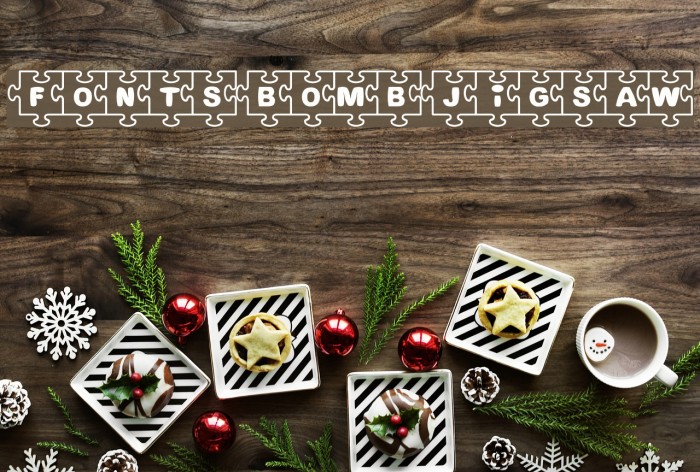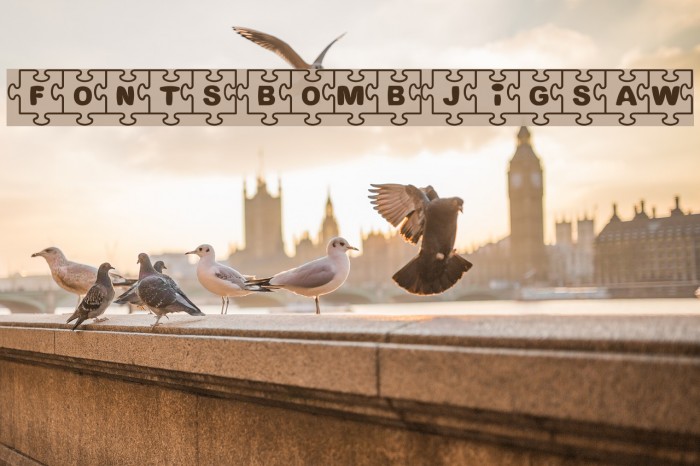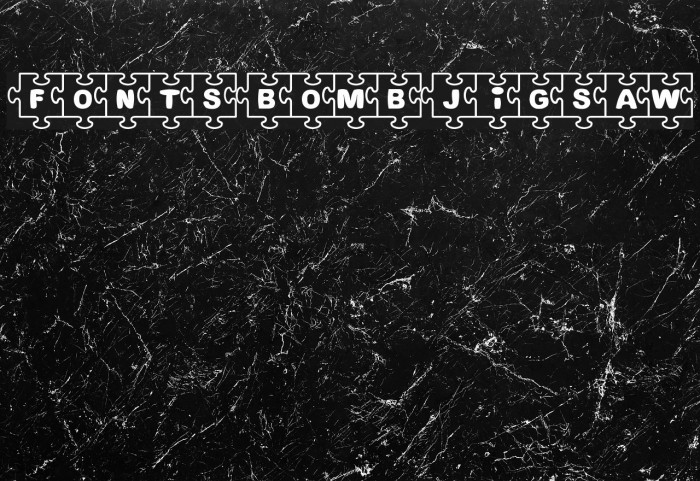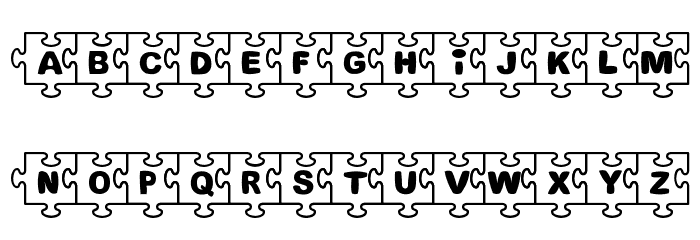
Fonts Bomb JiGSAW Font
Fonts Bomb JiGSAW Description
This playful and unique font features characters designed to resemble jigsaw puzzle pieces, creating a whimsical and engaging visual effect. Each letter is encapsulated within a puzzle piece outline, adding a sense of interconnectedness and creativity. The bold, rounded characters are easy to read, while the puzzle motif adds a decorative and fun element. This font is ideal for projects that require a touch of playfulness and creativity, such as children's books, educational materials, or playful branding. The design maintains a consistent style across uppercase, lowercase, and numerical characters, ensuring versatility and cohesion in various applications.
A playful font with characters resembling jigsaw puzzle pieces, perfect for creative projects from Uncategorized fonts.
- Proposed Projects: Ideal for children's books, educational materials, playful branding, and creative design projects.
- Overall Style: Playful, Creative
- Use Case: Headlines, Logos, Creative Design